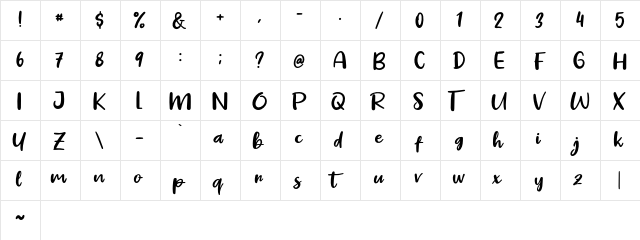
Pig Year Regular
Design Context for Pig Year Typeface
Pig Year is a composed and adaptable typeface that performs quietly and consistently across a wide range of design contexts.